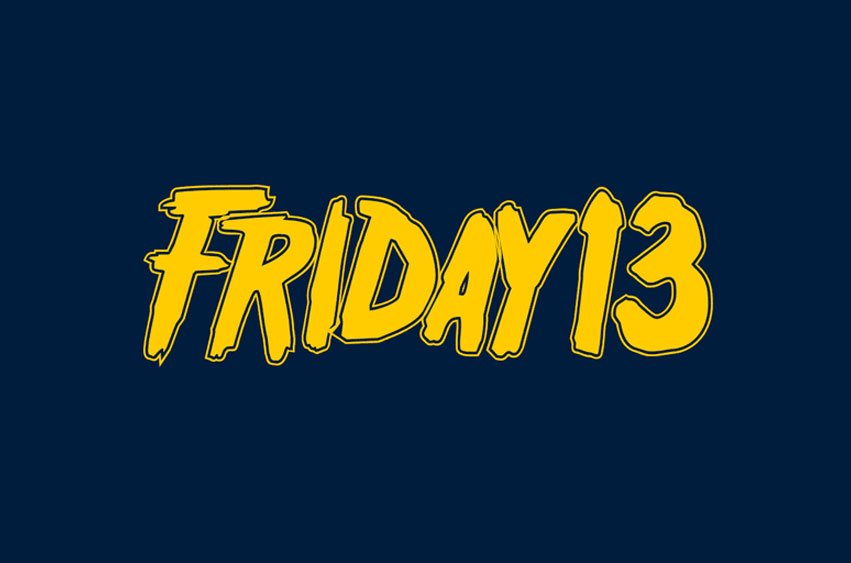
Friday13 Font is an outstanding contemporary horror font designed by Norfok for professional projects branding and professional use. Incredible in its detail and elegance, Friday 13 can enhance any design by making it more eye-catching – ideal for printing, branding, weddings and quotes alike!
Every letter in this font has a distinct and elegant appearance which make this font ideal for printing, branding weddings and quotes or other uses such as branding fashion apparel print templates wedding quotes other design uses etc.